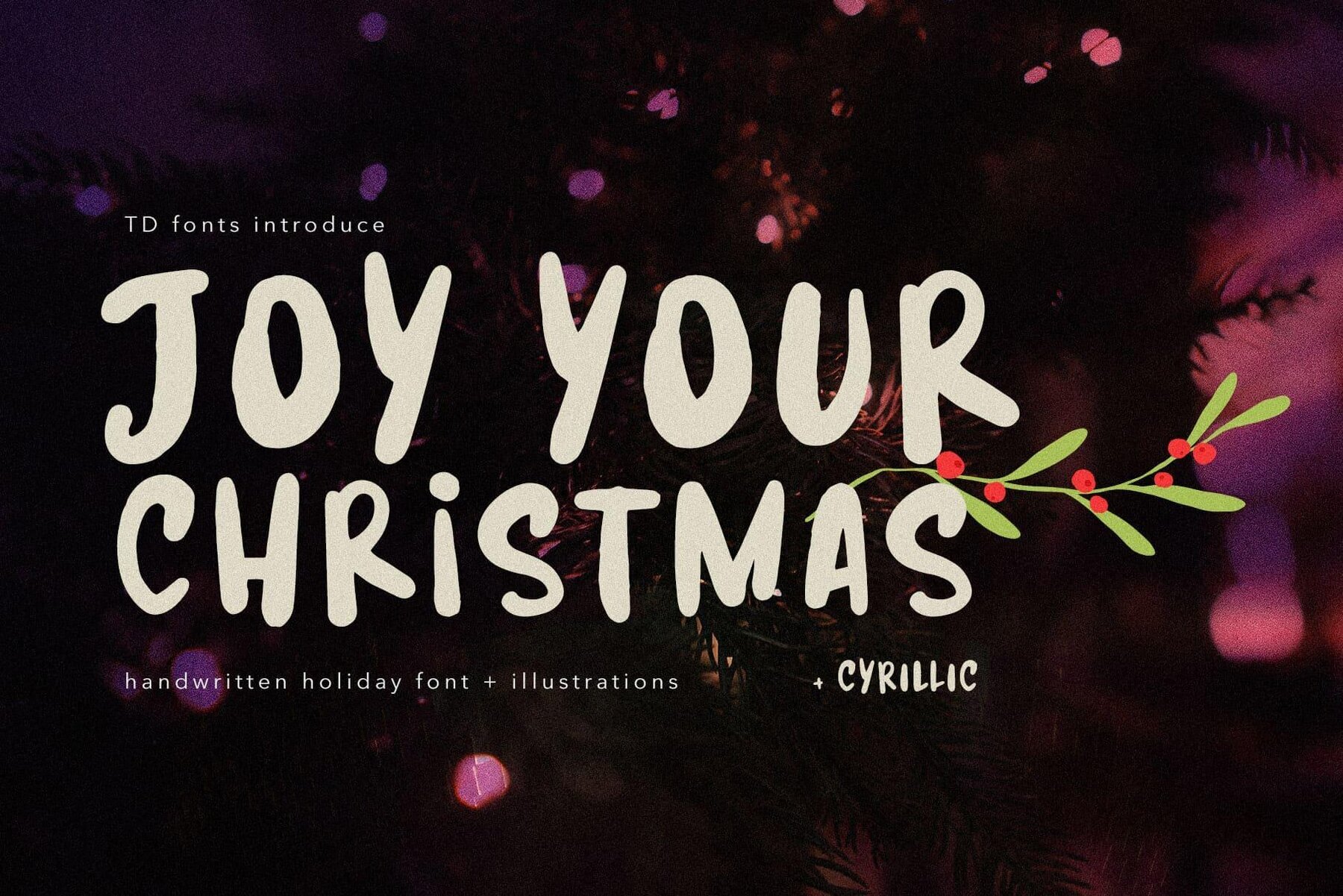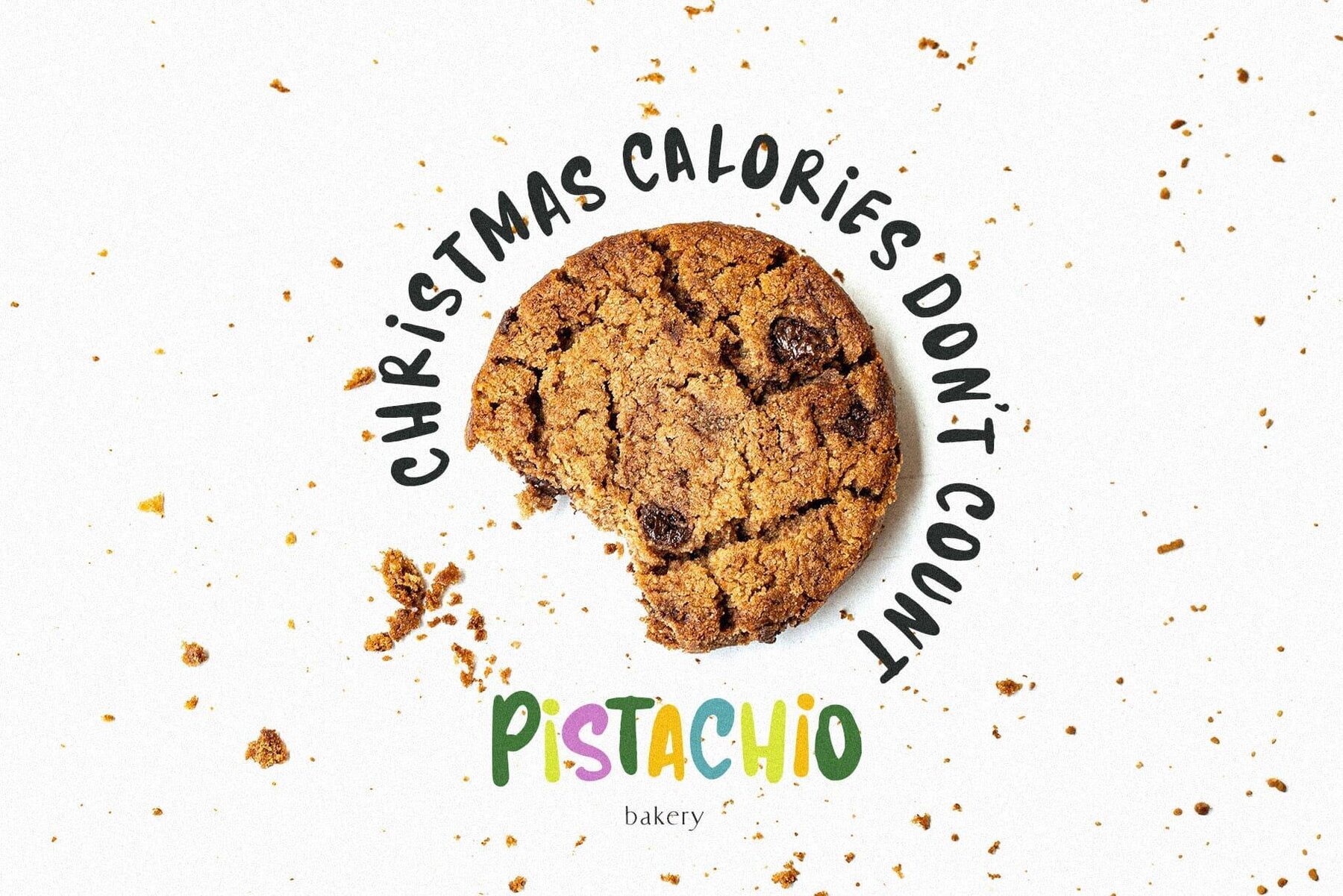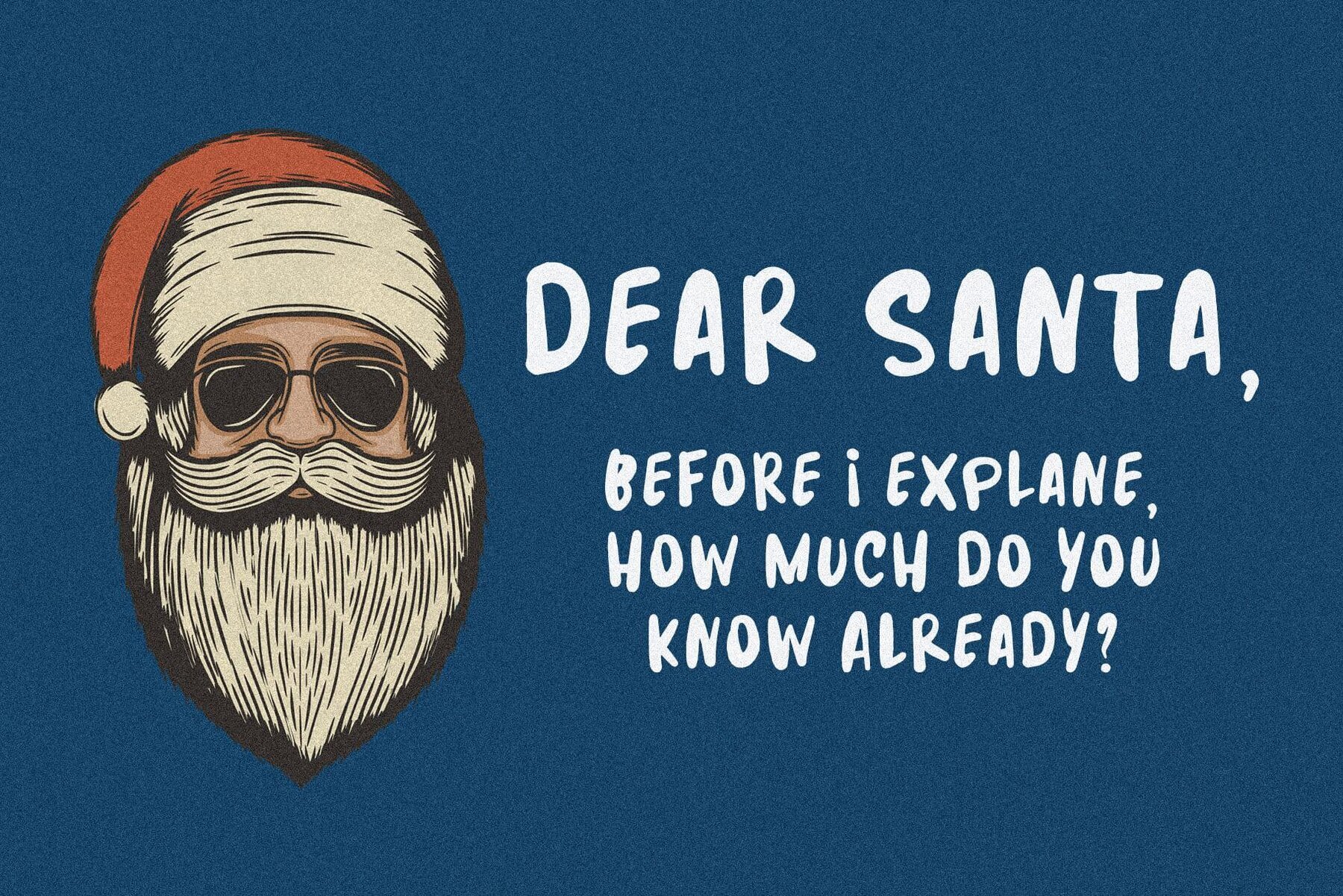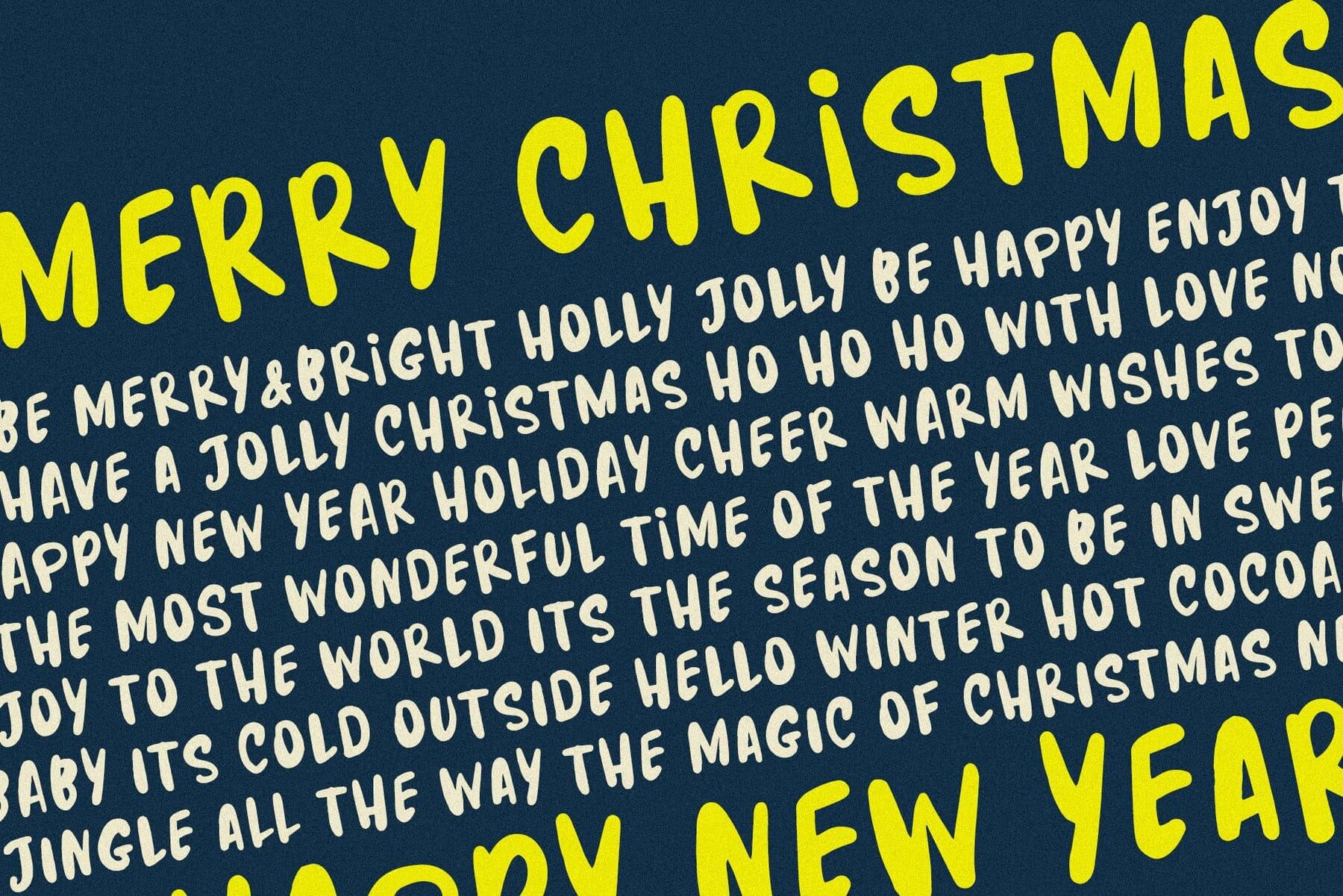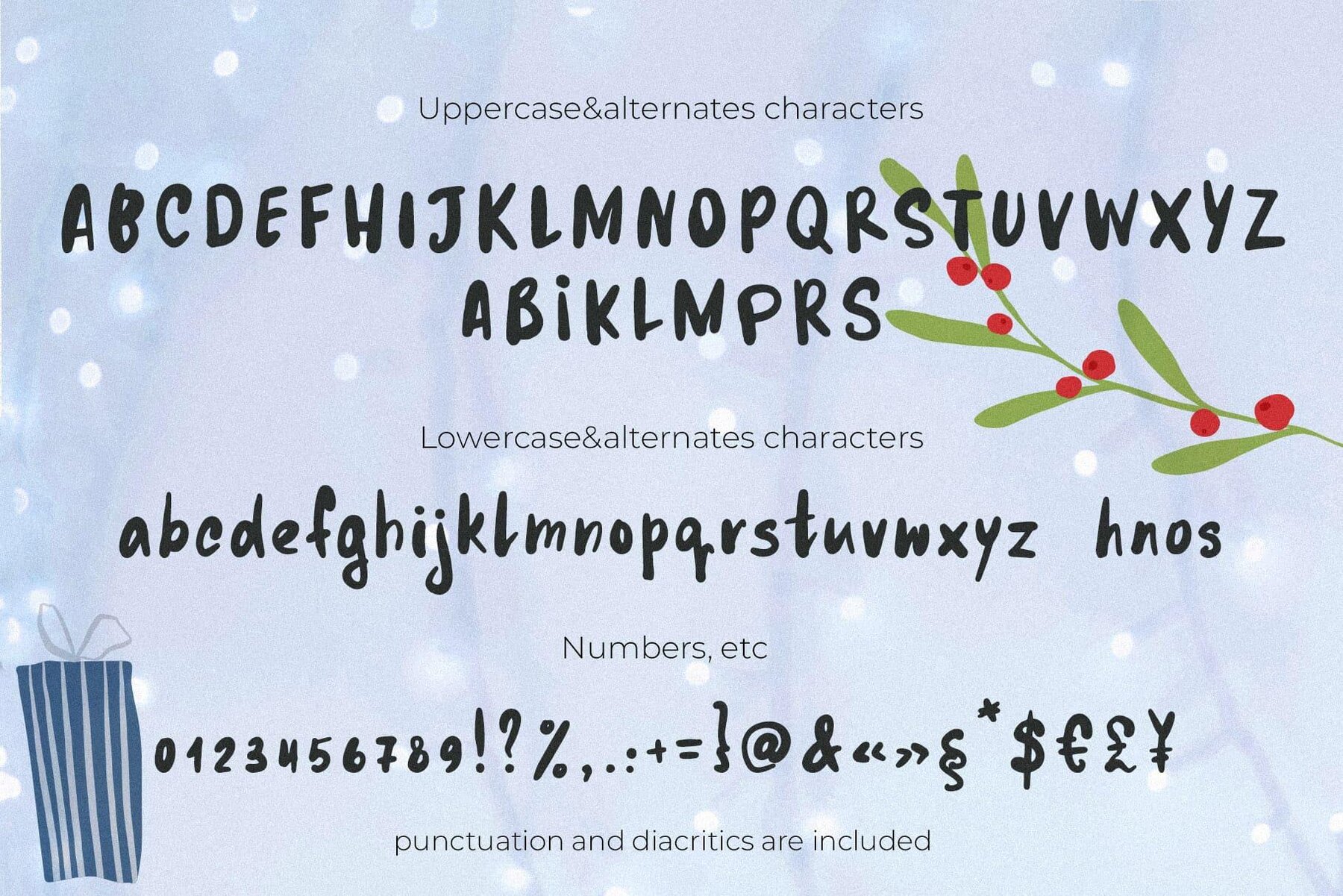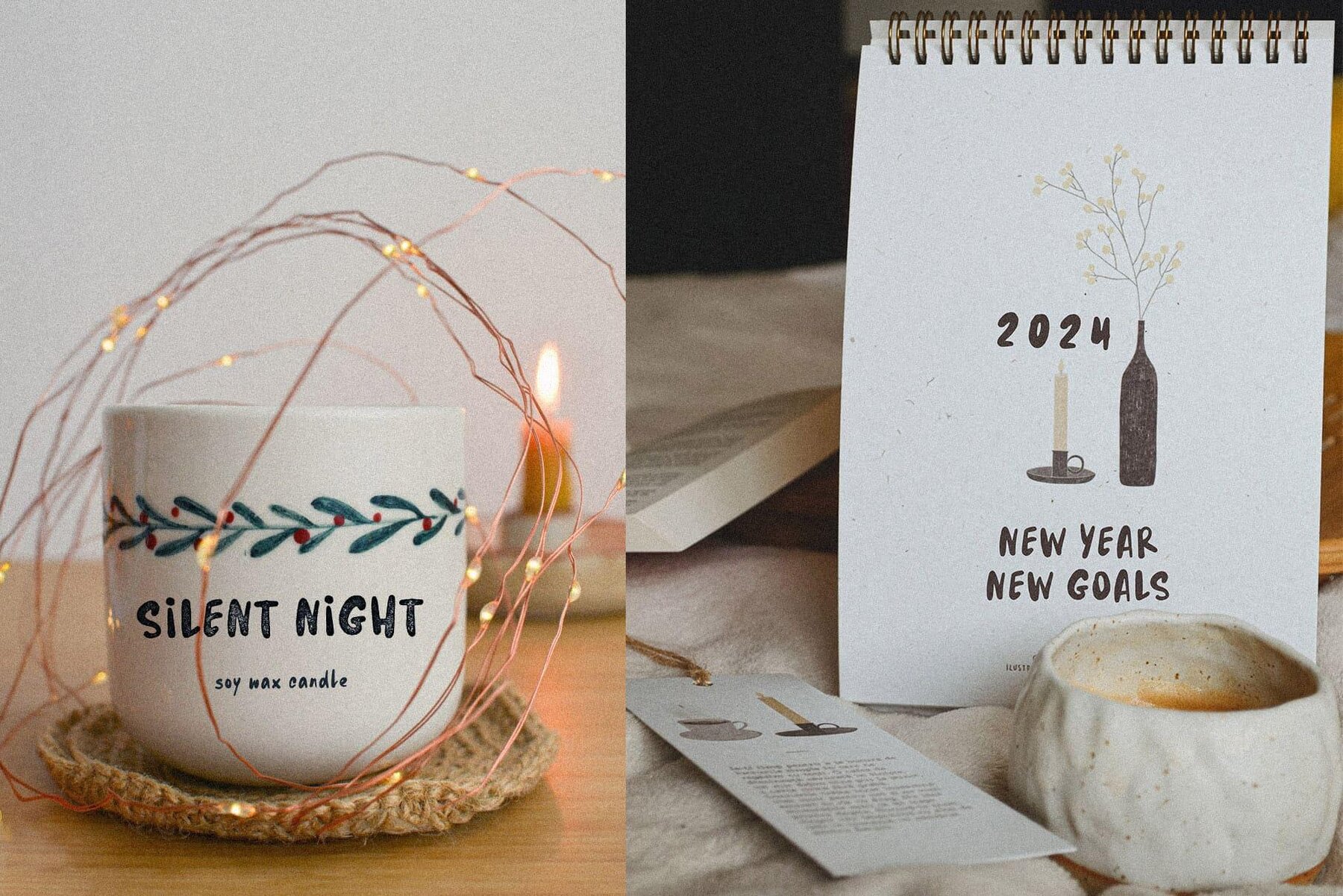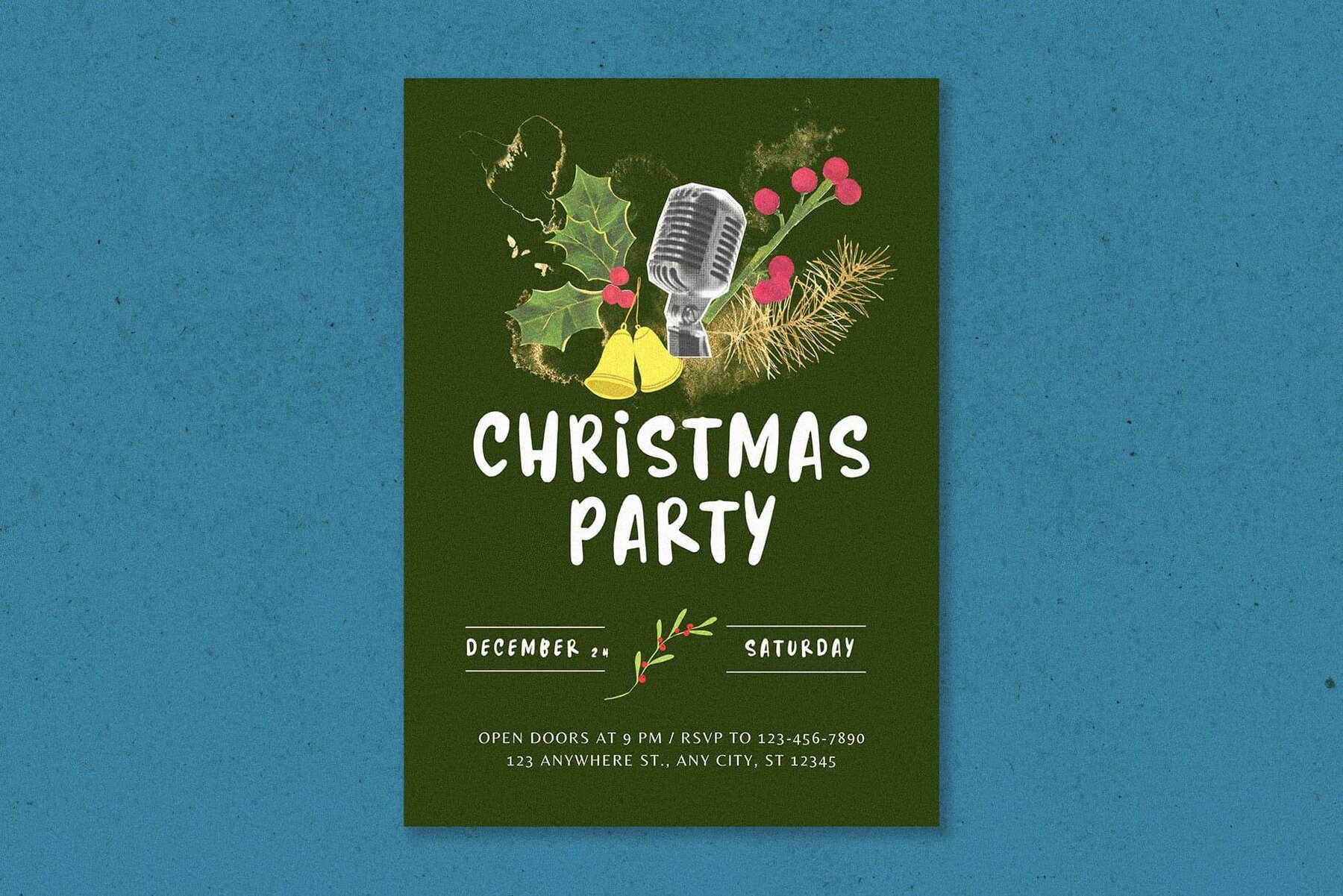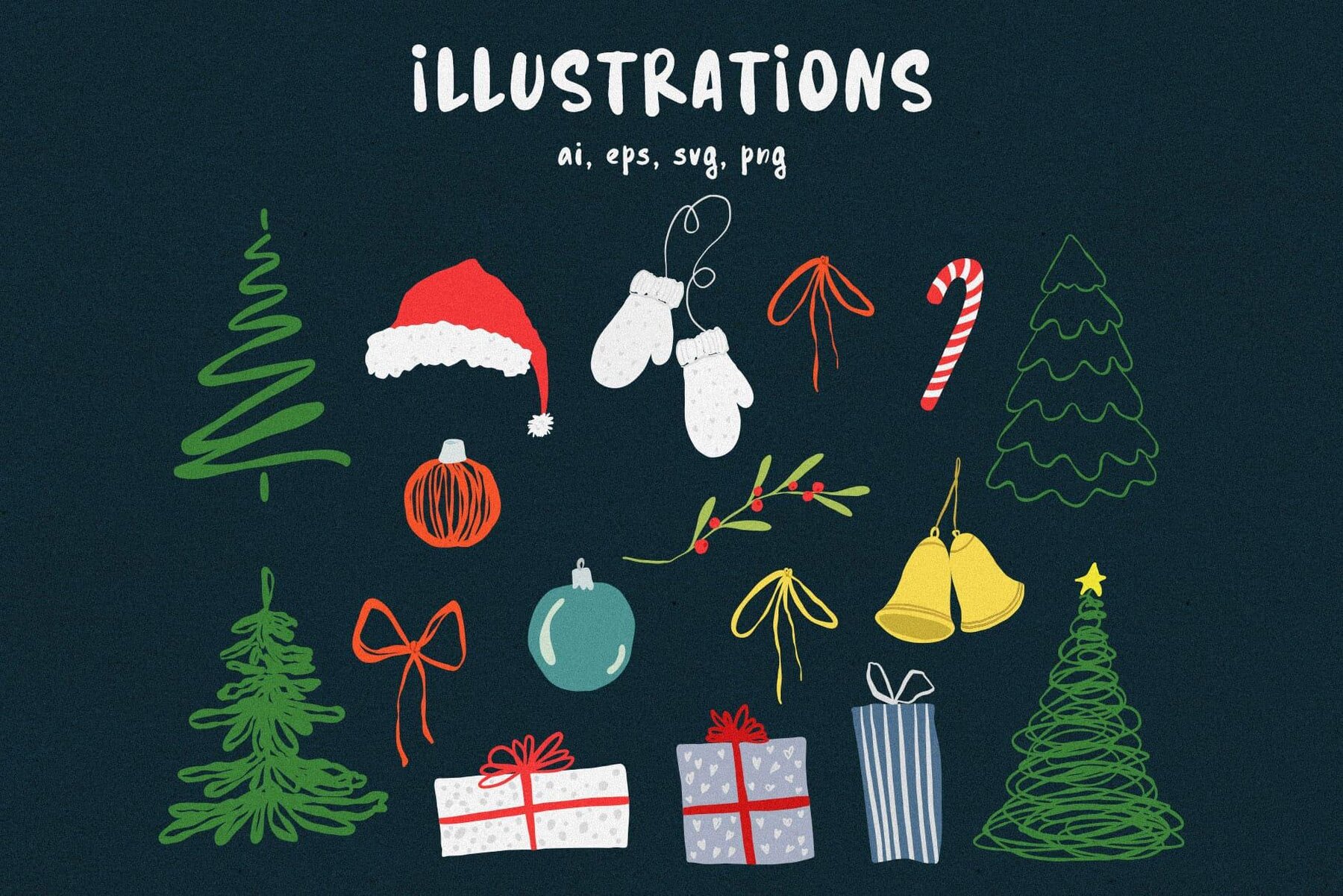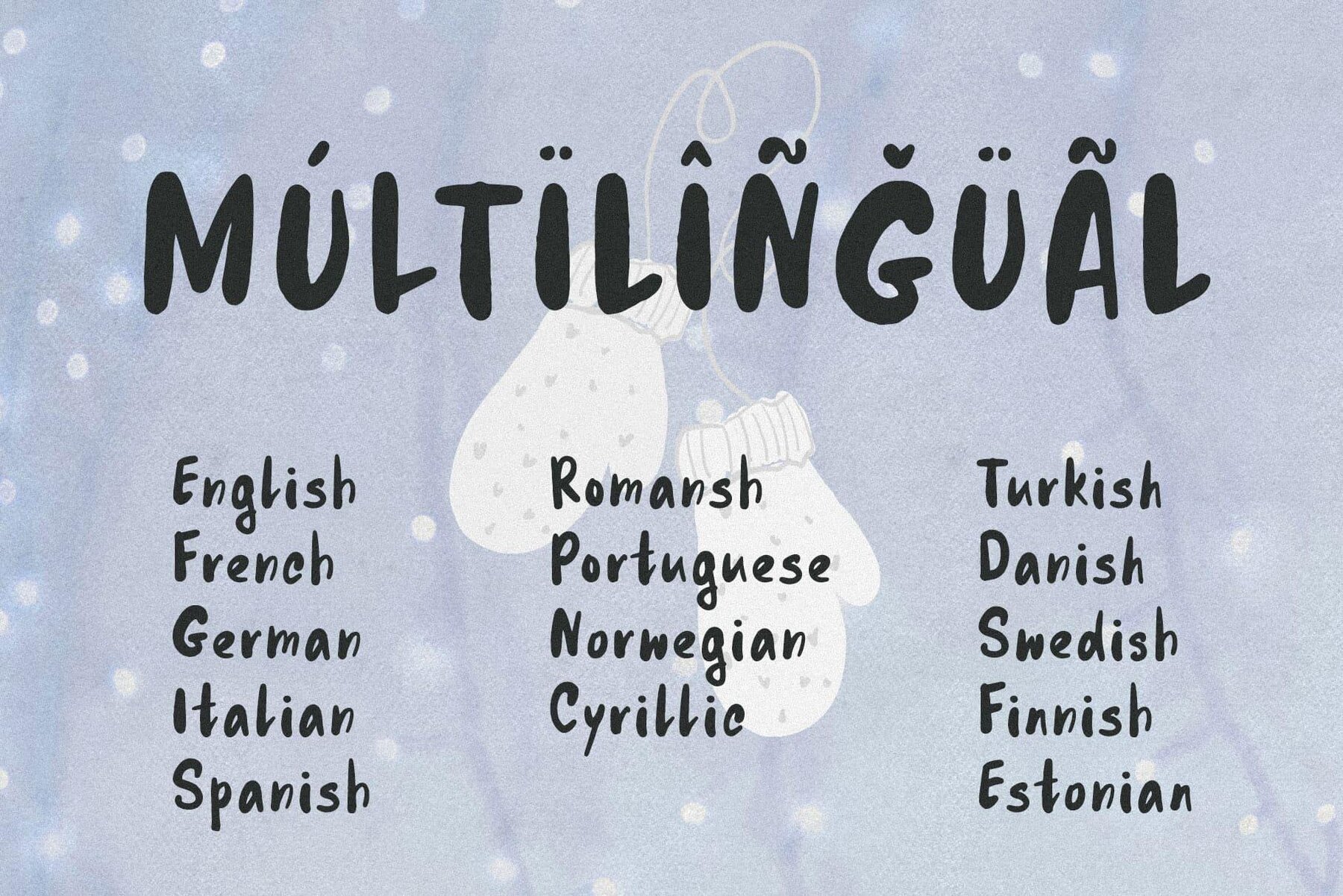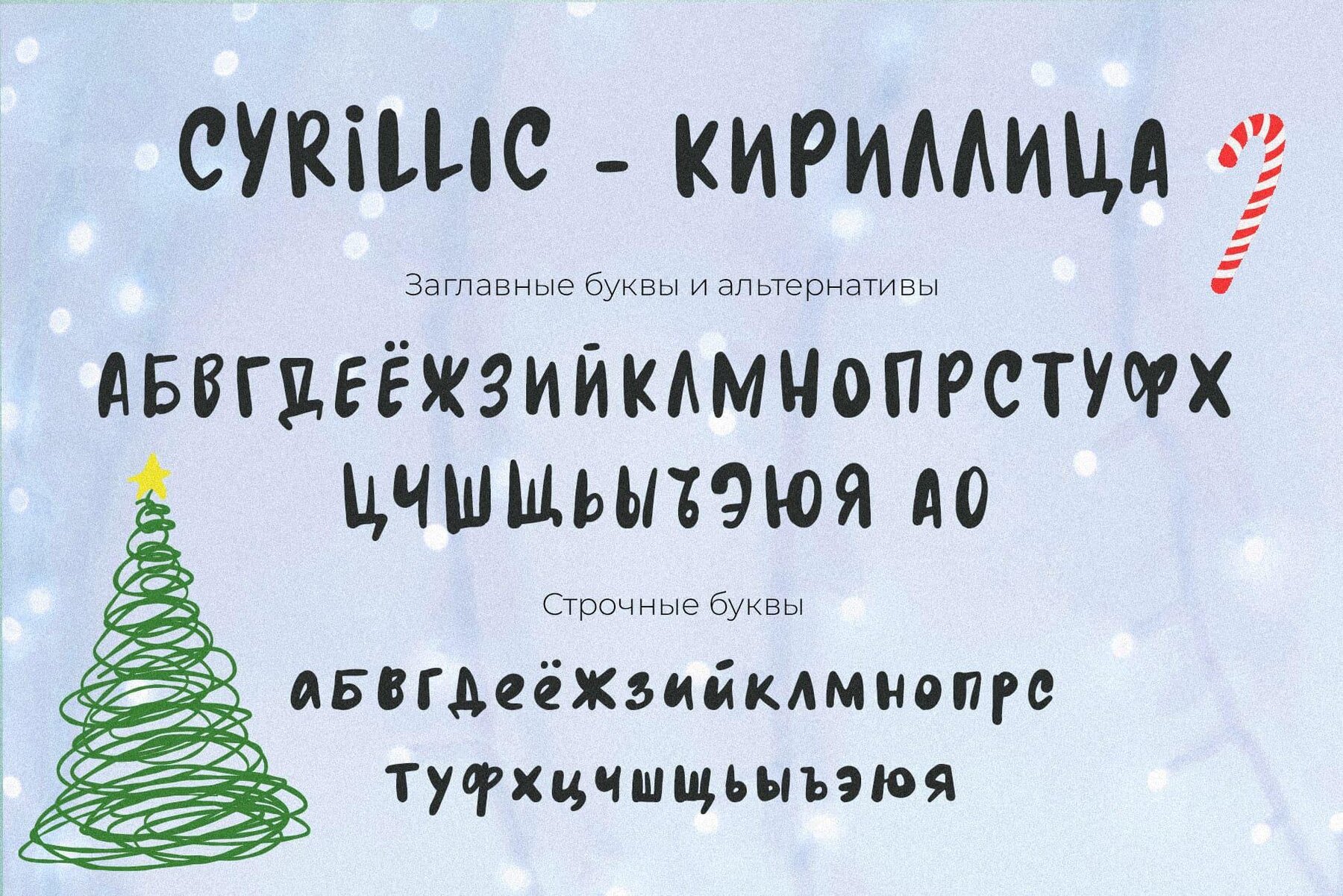
Joy your Christmas Font
Embrace the spirit of the holiday season with Joy Your Christmas, a charming handwritten typeface inspired by childhood memories. This font exudes a cozy, festive warmth with its slight grunge texture and playful baseline, reminiscent of scribbling quick notes on holiday cards. Ideal for festive design projects, this font makes a striking impression on headlines, social media graphics, branding, posters, and more. Let your creativity shine with product packaging, labels, and invitations enhanced by this vibrant typeface. Capture the nostalgic essence of childhood holiday joy and infuse it into your designs with Joy Your Christmas. It's a perfect choice to add a retro vibe and touch of whimsy to any creative project.Joy Your Christmas Handwritten Holiday Typeface